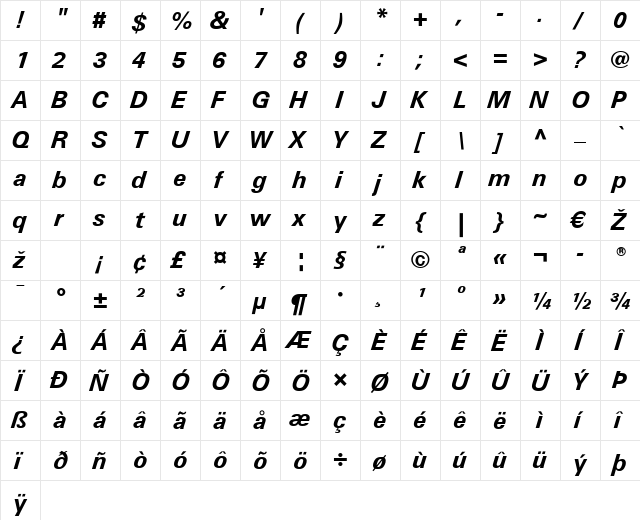
Univers LT 66 BoldItalic Regular Font Preview
Univers LT 66 BoldItalic Regular
Design Context for Univers LT 66 BoldItalic Typeface
Univers LT 66 BoldItalic is a composed and adaptable typeface that performs quietly and consistently across a wide range of design contexts. The dynamic lean of this cut emphasises speed and emphasis in any layout. The heavy weight commands attention and anchors typographic hierarchies.
Pro Tip: Use Univers LT 66 BoldItalic for emphasis, pull quotes, and subheadings where its slanted energy can add rhythm to the layout.